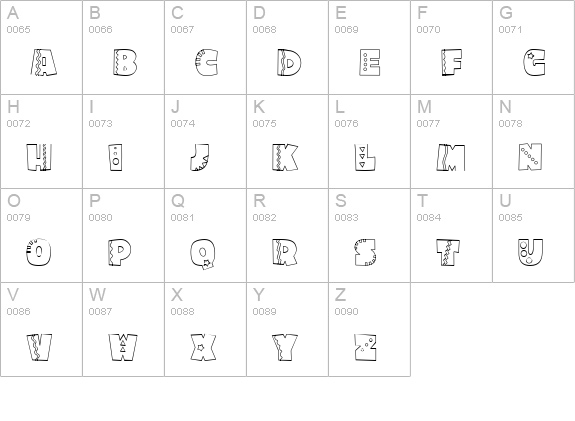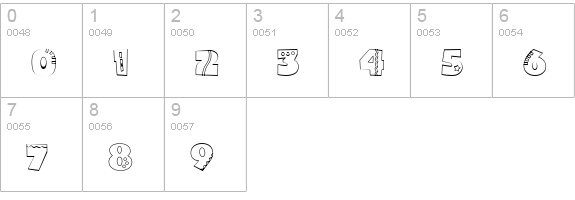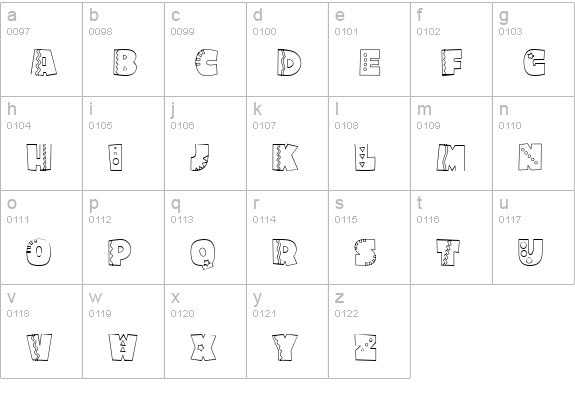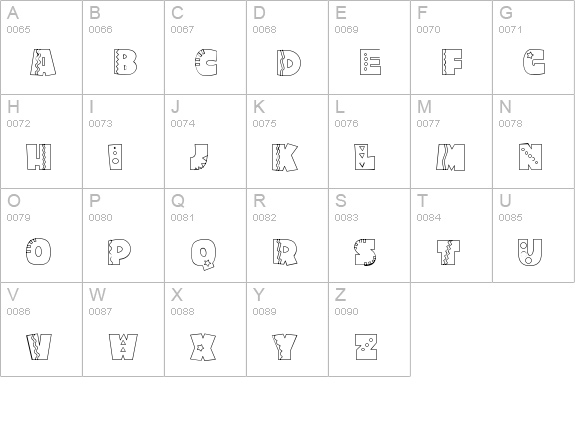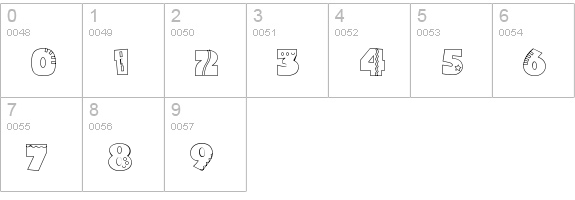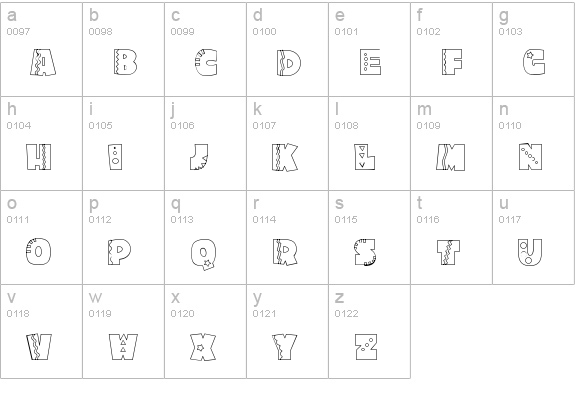
Introducing CK Shear Madness font, a whimsical and playful typeface that adds a touch of fun to any design project. This unique font features quirky and irregular letterforms that give off a sense of spontaneity and creativity. With its hand-drawn look and uneven strokes, CK Shear Madness brings a sense of charm and character to your designs. The best part? CK Shear Madness is available for free download at FontsMarket.com. Whether you're working on a poster, greeting card, or branding project, this font is sure to stand out and make a statement. Embrace the madness and add a touch of whimsy to your designs with CK Shear Madness font today!